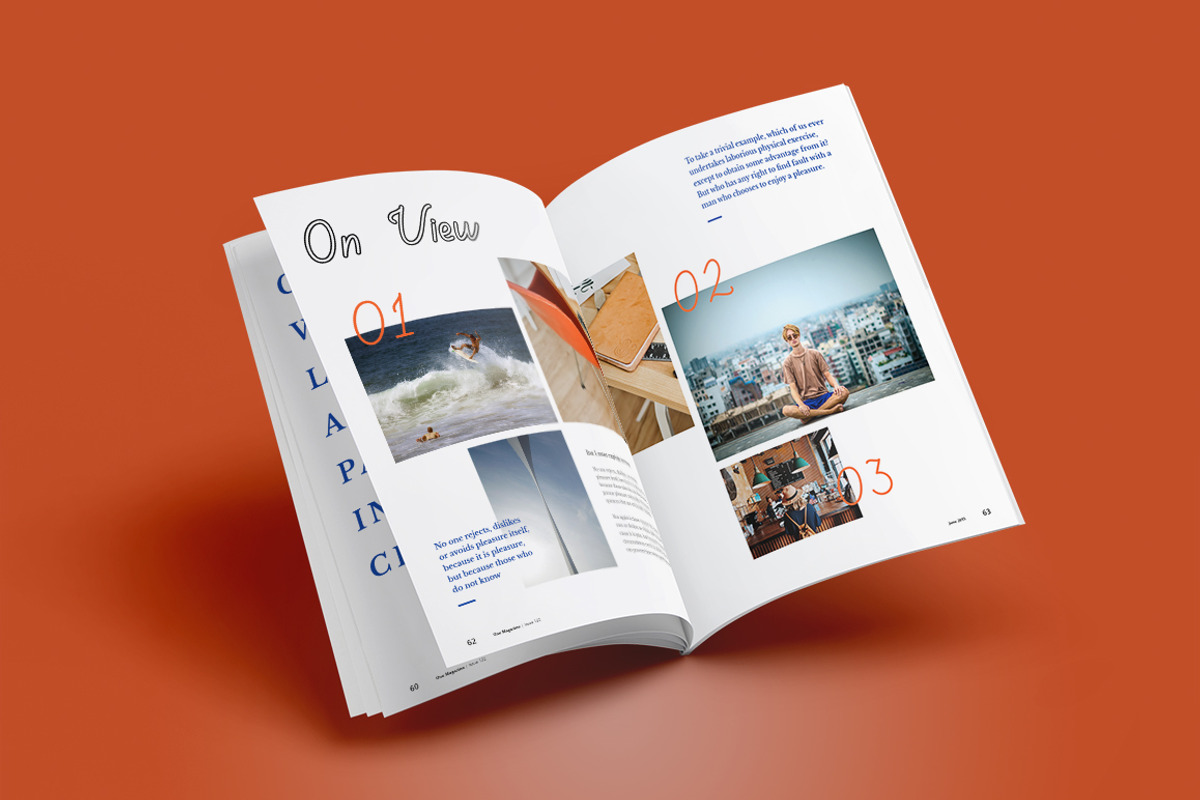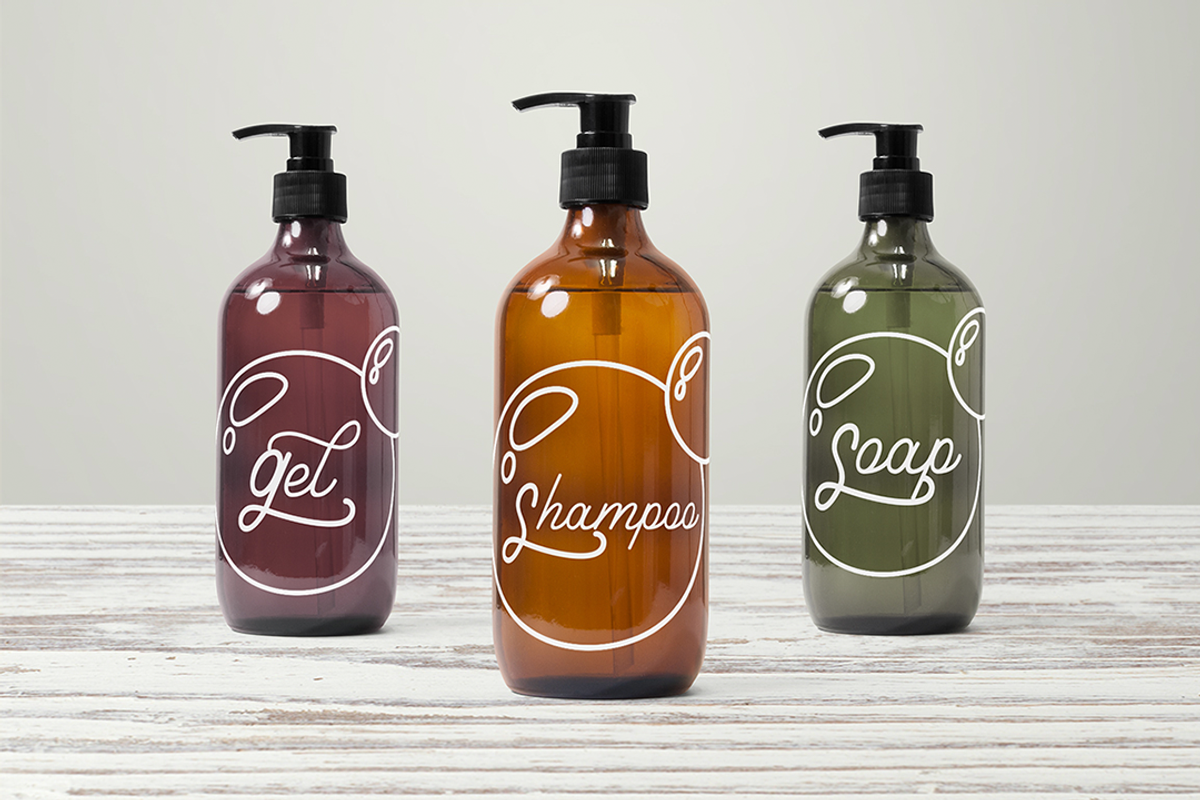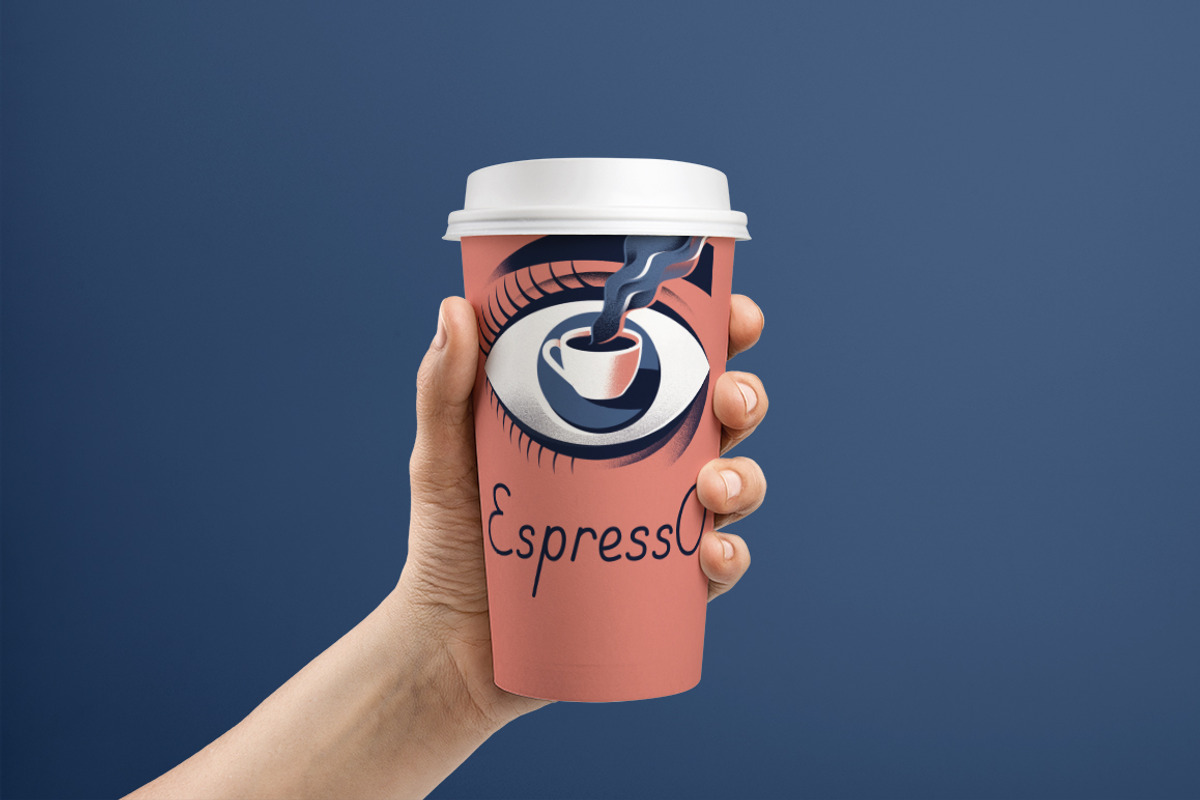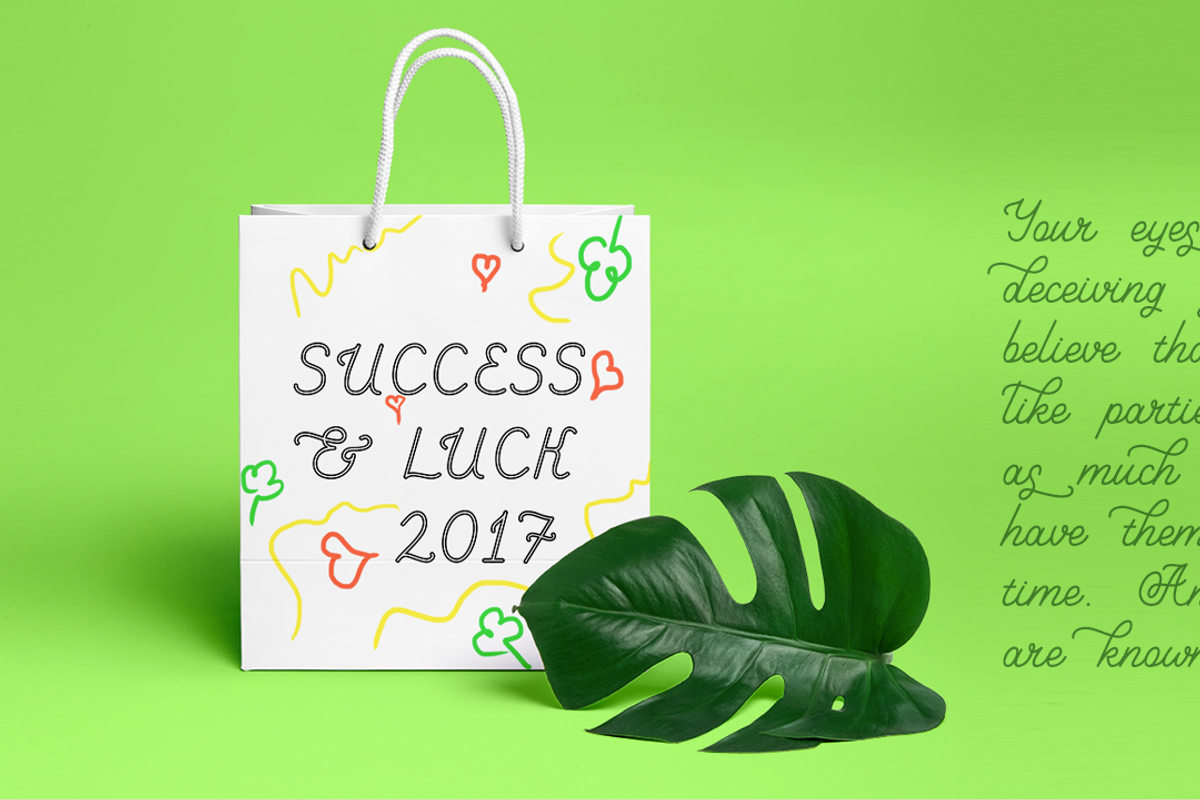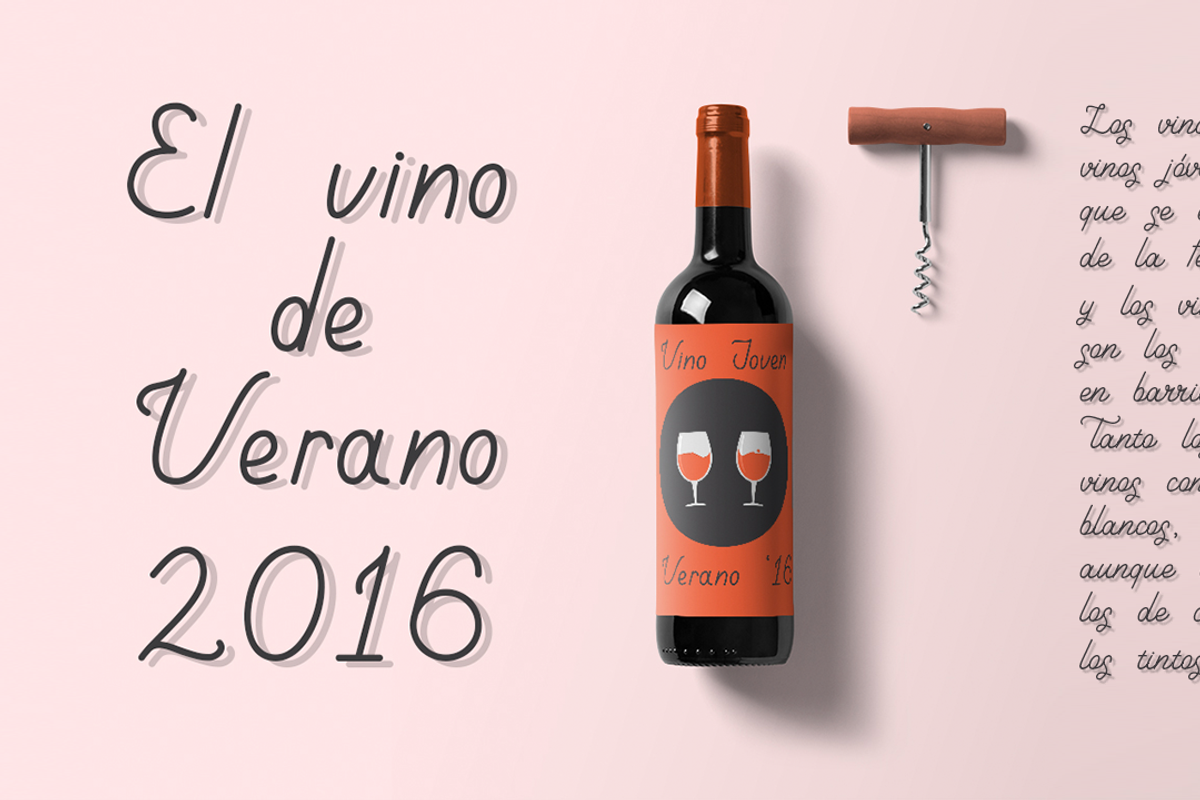
Savoiardi family
Introducing font pack Savoiardi Family. It includes Script & Shadow and Sans & Display fonts. It's always awesome to use family fonts to make your design works on high level. They fit to each other and you can mix them on your works, be it print or web design. Make your graphic works more fancy like Ferrari. Just blow up smb's mind with your pictures using my fonts.
About family:
- multi language support
- swashes
- alternative symbols
- initial and final glyphs
- kerned with love